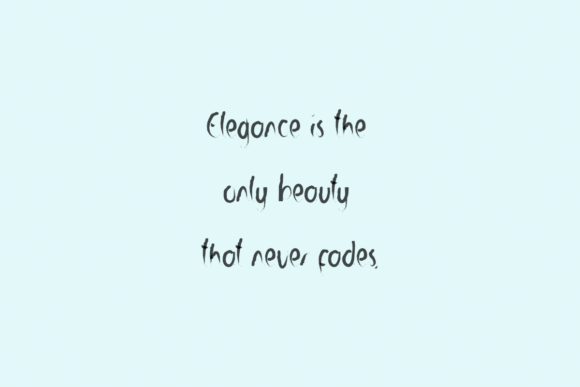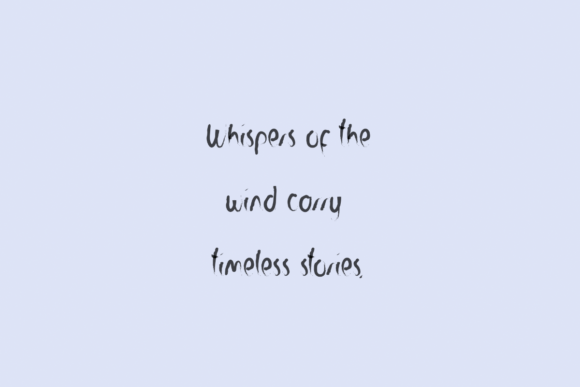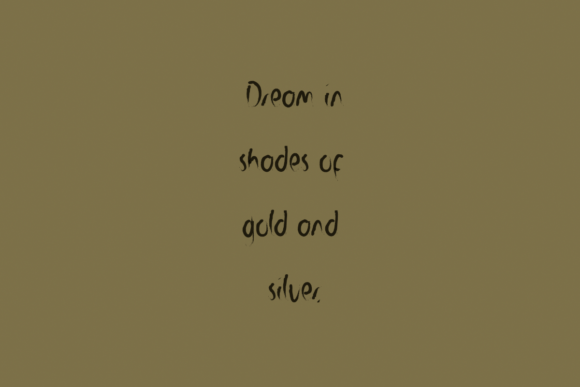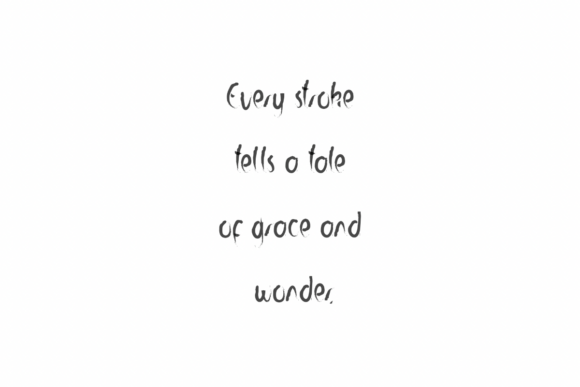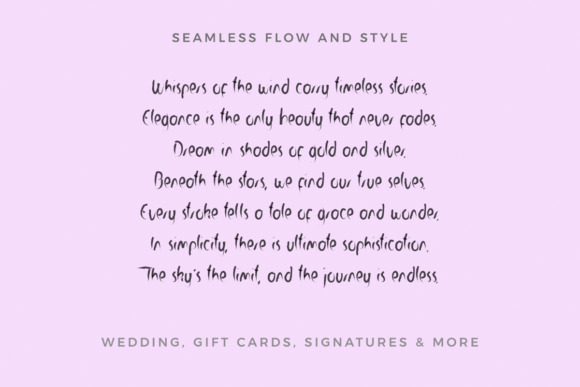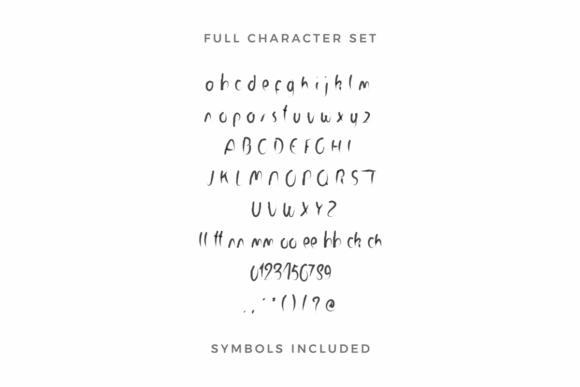
Unveiling Ballare: A One-of-a-Kind Gem in the World of Typography
In the vast and ever-evolving landscape of typography, there exist fonts that not only serve as a means of communication but also as a form of artistic expression. Among these, Ballare Font emerges as a one-of-a-kind gem, captivating the hearts of designers and crafters alike with its unique charm and elegance. Originating from meticulous handwriting, Ballare is an intricately hand-lettered script font that brings a delightfully lovely aesthetic to any design project it becomes part of.
The Essence of Ballare Font
Ballare is more than just a font; it is an experience. Each stroke, every curve, and all the exquisite detailing are a testament to the art of penmanship. This script font exudes romance and elegance, making it an ideal choice for projects that demand a touch of sophistication and class. Whether it’s wedding invitations, luxury branding, or any creative endeavor that seeks to make a lasting impression, Ballare brings a seamless blend of creativity and charm.
Origins and Design
The origins of Ballare lie in the tradition of handwriting, where every letter and word is crafted with precision and care. This hand-lettered script font dances across the page, imbuing any text with a sense of movement and life. The design of Ballare is characterized by its fluidity and the organic nature of handwriting, yet it retains a level of sophistication that appeals to professional designers. Each character is a piece of art, meticulously designed to ensure that the essence of handwriting is captured in a digital format.
Applications of Ballare Font
The versatility of Ballare Font makes it suitable for a wide range of applications. Designers can use it to add a personal touch to wedding stationery, making each invitation or card feel unique and special. In branding, Ballare can help luxury brands communicate their message with elegance and refinement, setting them apart in a crowded marketplace. For crafters, this font offers endless possibilities for creating handmade cards, scrapbooking, and other paper crafts that require a personal and artistic touch.
Why Choose Ballare?
Choosing Ballare Font for a project is a decision that can elevate the overall aesthetic and impact of the design. Here are a few reasons why designers and crafters are drawn to Ballare:
- Unique Aesthetic: Ballare offers a unique aesthetic that is hard to find in digital fonts. Its hand-lettered nature gives it a distinctive look that can make any project stand out.
- Elegance and Sophistication: The font exudes elegance and sophistication, making it perfect for projects that require a high level of refinement.
- Versatility: Ballare is versatile and can be used in various design projects, from digital to print.
- Emotional Connection: The personal touch of handwriting in Ballare can create an emotional connection with the audience, making designs more relatable and engaging.
Tips for Using Ballare Effectively
To make the most out of Ballare Font, here are a few tips:
- Pair with Simplicity: Ballare’s intricate detailing can make a bold statement. Pair it with simpler fonts or design elements to balance the overall look.
- Experiment with Colors: While Ballare shines in black, experimenting with colors can add a unique twist to your designs.
- Consider the Context: Ensure that the use of Ballare aligns with the project’s tone and message. Its elegance and sophistication make it suitable for projects that require a formal or romantic touch.
Ballare Font is a remarkable addition to the world of typography, offering designers and crafters a tool to infuse their projects with romance, elegance, and a personal touch. Its origins in meticulous handwriting, combined with its digital versatility, make it a one-of-a-kind gem that can bring any design to life. Whether you’re working on a luxury brand project, a wedding invitation, or a handmade craft, Ballare is ready to add its stunning allure, helping you create designs that are not only beautiful but also memorable.